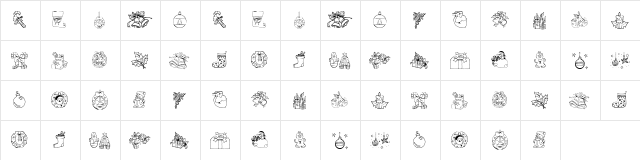
Christmas ornaments Regular
Design Context for Christmas ornaments Typeface
Christmas ornaments is built around its visual character rather than neutral utility — its distinctive forms are designed to make an impression at display sizes.
Font Pairing: Pair with a clean neutral sans-serif for body copy to let Christmas ornaments's character lead without overwhelming the composition.
Pro Tip: Treat Christmas ornaments as the centrepiece of your typographic hierarchy. One strong heading set in a decorative face can carry an entire layout.